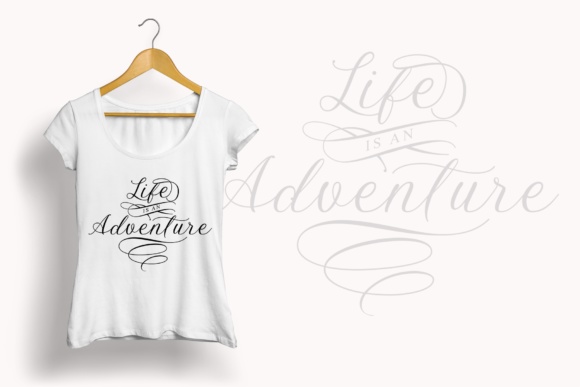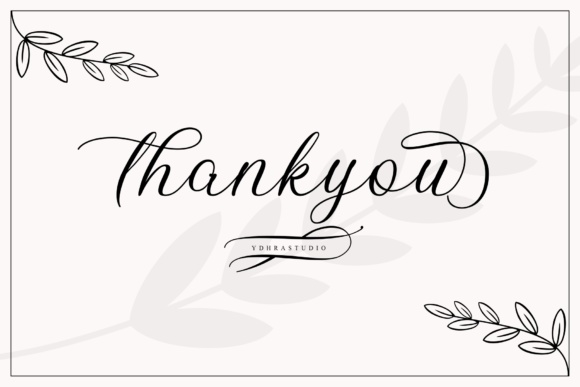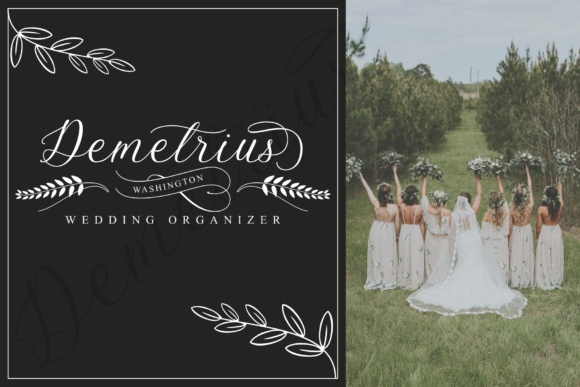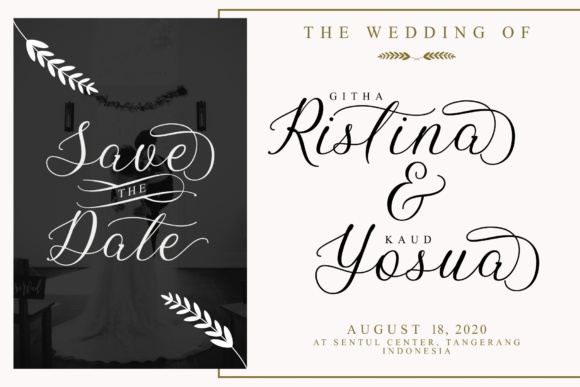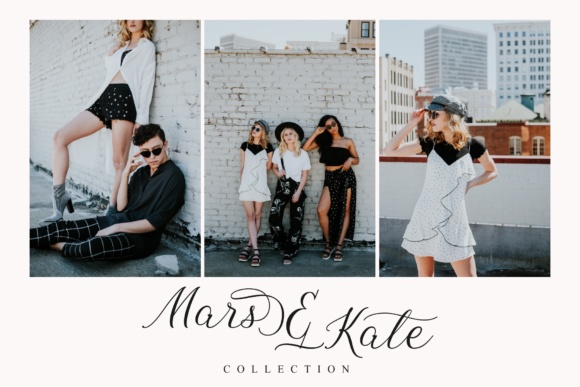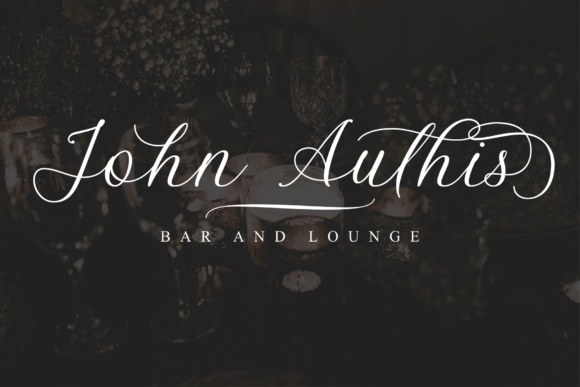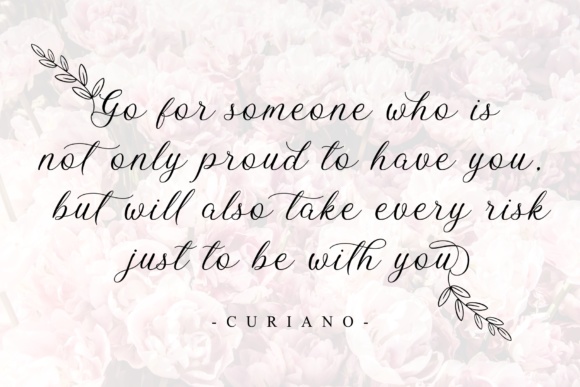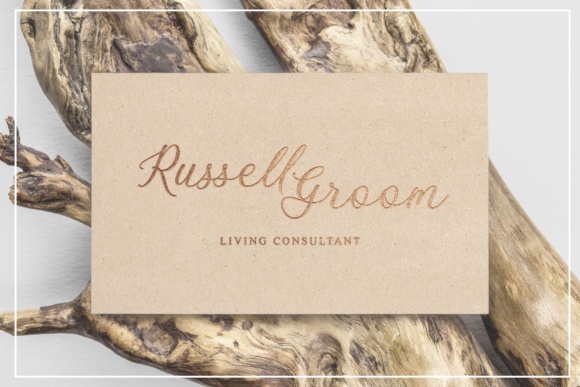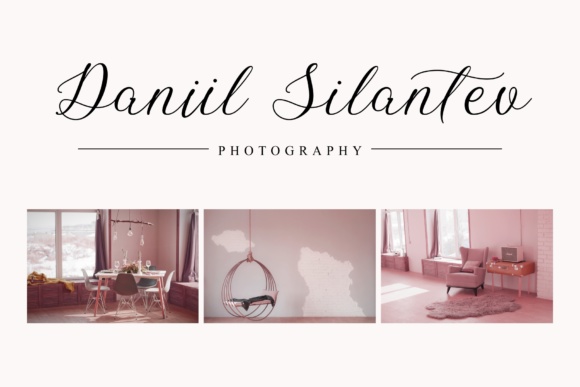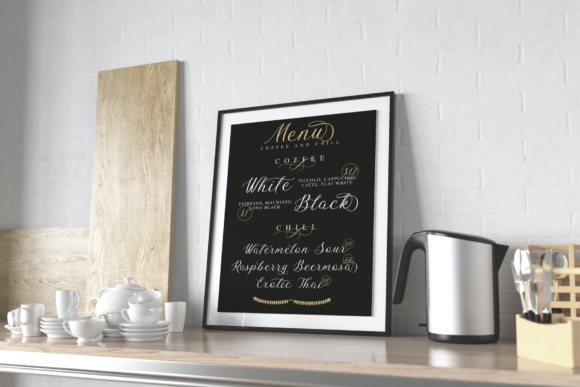
Bellasic Font
Bellasic is an elegant script. Especially made for those of you who are looking to add a touch of elegance and modernity to your design. It comes with an extra set of swashes and leafs.
Bellasic is great for invitations, greeting cards, posters, name card, quotes, blog headers, branding, logos, fashion, apparels, and more!